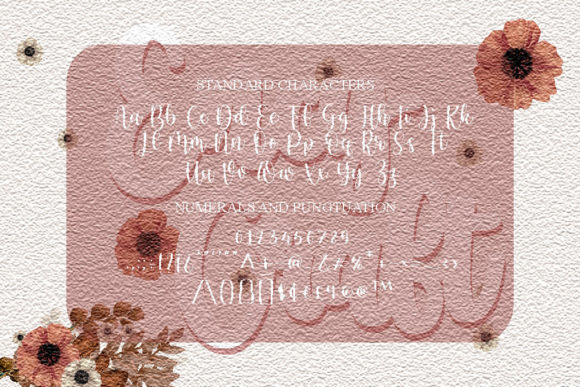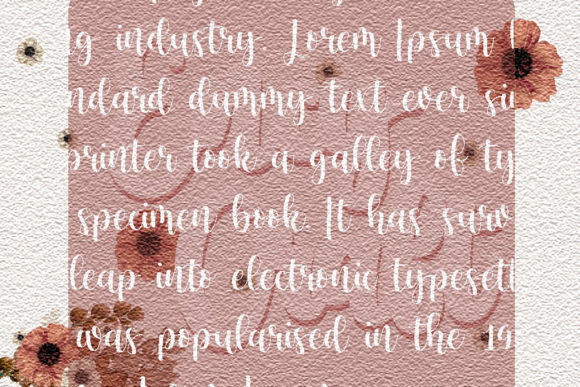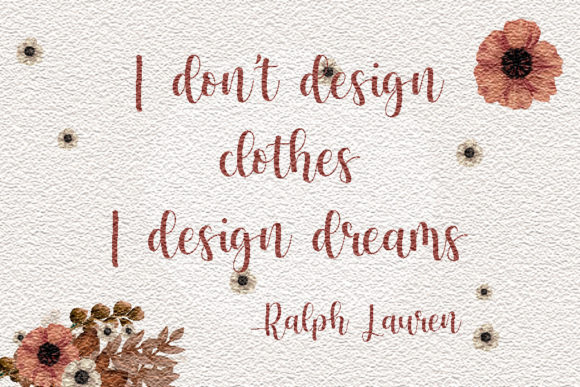
Introducing Ency Craft Font: Elevate Your Designs with Elegance
In the world of typography, a font can make or break a design. For crafters, designers, and creative enthusiasts, finding the perfect font is akin to discovering a treasure trove of possibilities. This is where Ency Craft Font comes into play, a dazzling script font that is about to revolutionize your design endeavors. In this article, we’ll dive into the intricacies of Ency Craft, exploring its features, benefits, and the vast potential it holds for your creative projects.
The Beauty of Ency Craft Font
Ency Craft is not just another font; it’s a masterpiece of typographic art. This script font is meticulously crafted, boasting a high level of detail that sets it apart from more generic fonts. Its elegant strokes, perfect ligatures, and beautiful swashes make it an eye-catching addition to any design. Whether you’re working on a branding project, crafting a unique invitation, or simply experimenting with typography, Ency Craft is designed to impress.
One of the standout features of Ency Craft Font is its incredible versatility. This font is not limited to a specific genre or theme; it can be seamlessly integrated into a wide range of projects. From fashion and beauty to lifestyle and travel, Ency Craft’s adaptability ensures it complements your work perfectly. Its sophisticated look works well for:
- Wedding invitations and event stationery
- Fashion and beauty product packaging
Why Choose Ency Craft Font?
With so many fonts available, why should Ency Craft be your go-to choice? Here are a few compelling reasons:
- Unique and Memorable: Ency Craft’s distinctive style ensures your designs stand out in a crowded digital landscape.
- Ease of Use: Despite its intricate design, Ency Craft is surprisingly easy to use, even for those new to advanced typography.
- Highly Readable: While it’s elegant and decorative, Ency Craft maintains a high level of readability, making it perfect for both headings and body text.
Tips for Using Ency Craft Effectively
To truly harness the power of Ency Craft Font, consider the following tips:
- Pair it Wisely: Combine Ency Craft with complementary fonts to create visual interest and hierarchy in your designs.
- Experiment with Colors: While Ency Craft looks stunning in black, don’t be afraid to experiment with colors that match your brand’s palette or the mood of your project.
- Utilize Swashes: The swashes in Ency Craft can add a touch of elegance to your designs. Use them to create beautiful beginnings and endings for your text.
Ency Craft Font is more than just a script font; it’s a tool that can elevate your designs to new heights. Its combination of elegance, versatility, and readability makes it an invaluable asset for designers and crafters alike. Whether you’re looking to add a touch of sophistication to your branding, create stunning invitations, or simply explore the world of typography, Ency Craft is the perfect companion. So, why wait? Dive into the world of Ency Craft and discover a new realm of creative possibilities.